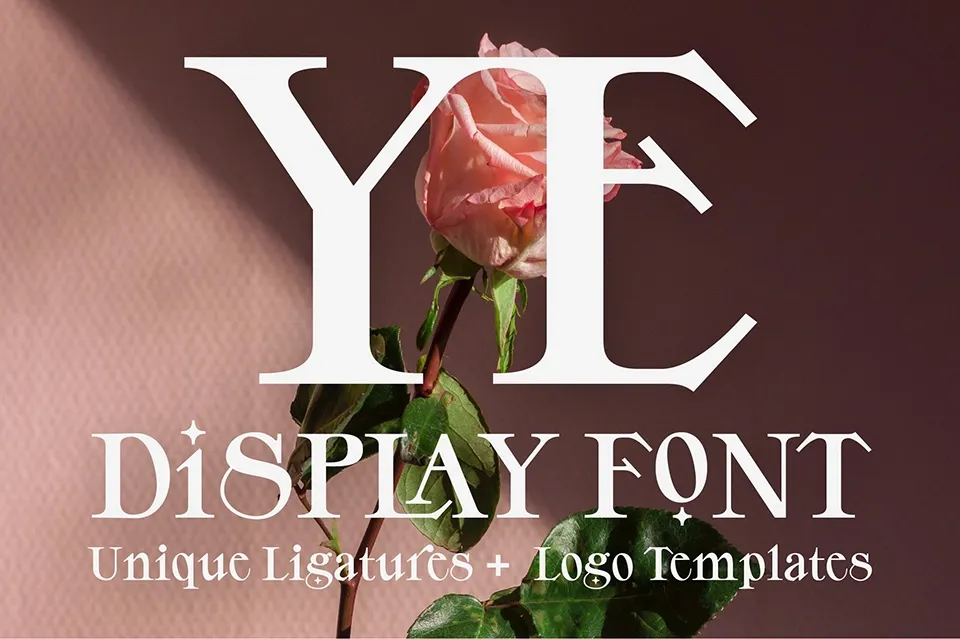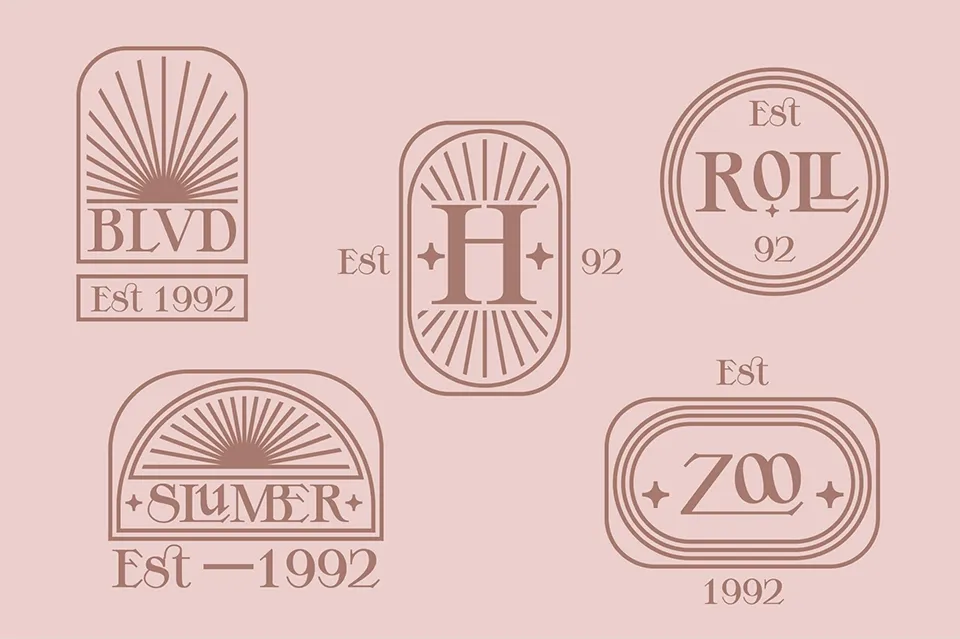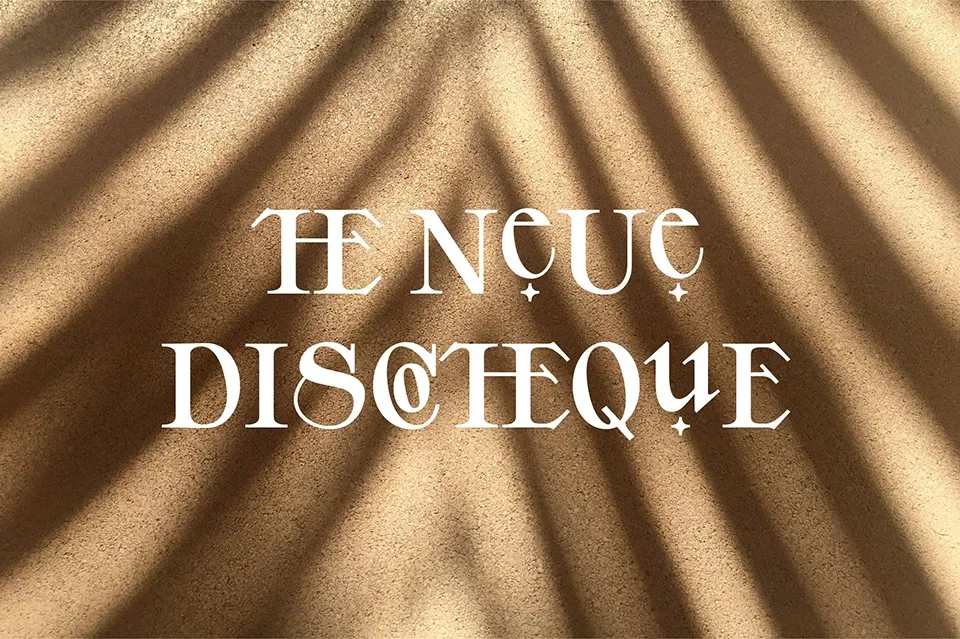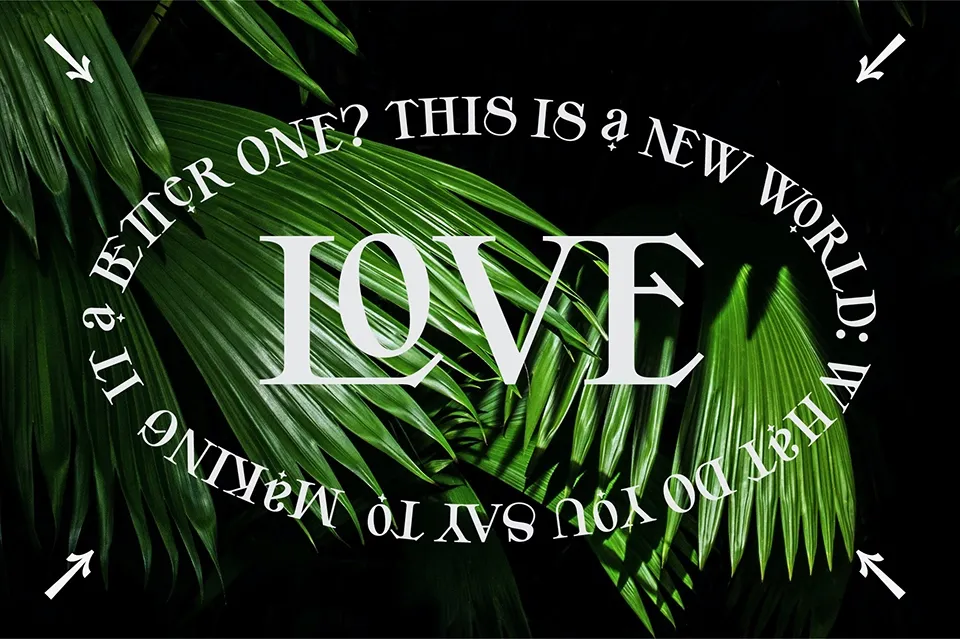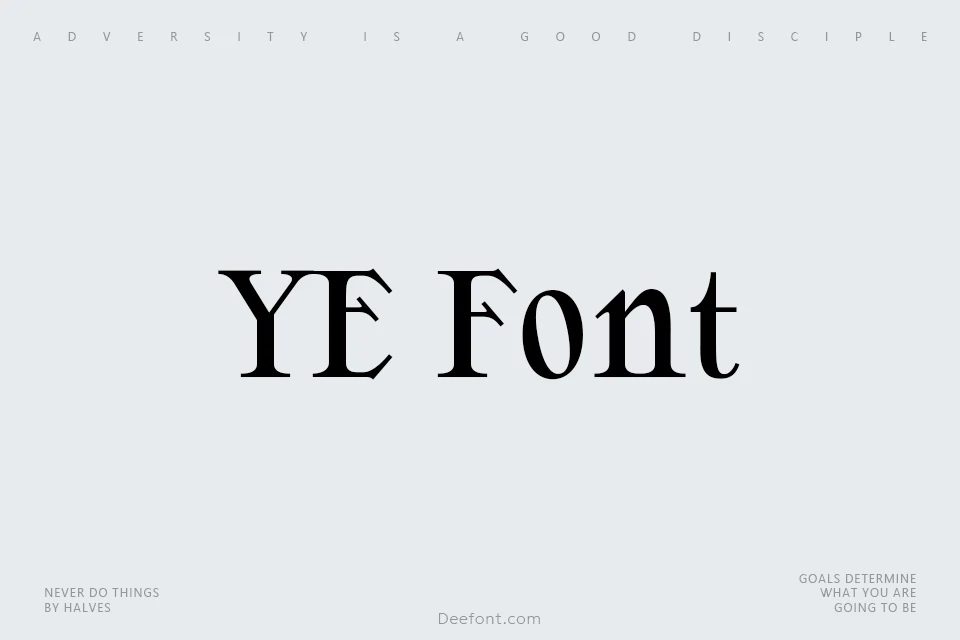
YE Font
YE Font is a refined and elegant display typeface that combines classic serif elements with a modern twist. Its bold, sophisticated letterforms are enhanced by unique ligatures, adding a touch of creativity and charm to your designs. Perfect for logos, branding, editorial layouts, and luxury packaging, YE Font delivers a timeless aesthetic that exudes professionalism and style. The font’s versatility allows it to adapt seamlessly to both minimalistic and elaborate compositions. Whether you’re crafting bold headlines or intricate visual identities, YE Font ensures your work stands out with grace and distinction, making it an ideal choice for high-end design projects.